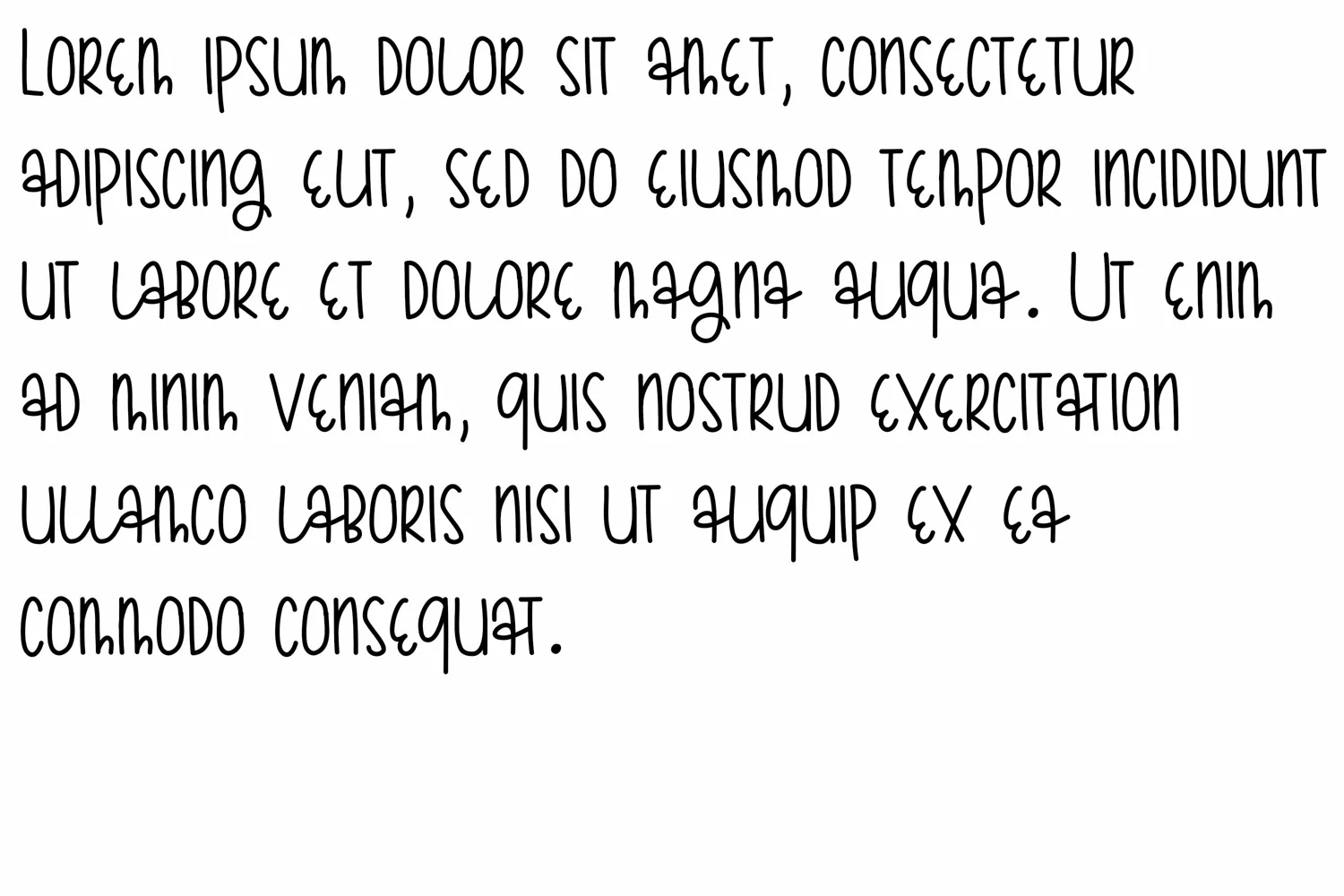
Gumdrops is a fun, funky handwriting font that mimics the way I wrote in high school (year one - I changed my high school writing style every year). It's a playful typeface with unique but readable letters. This font features a full set of upper and lower case letters plus special characters.